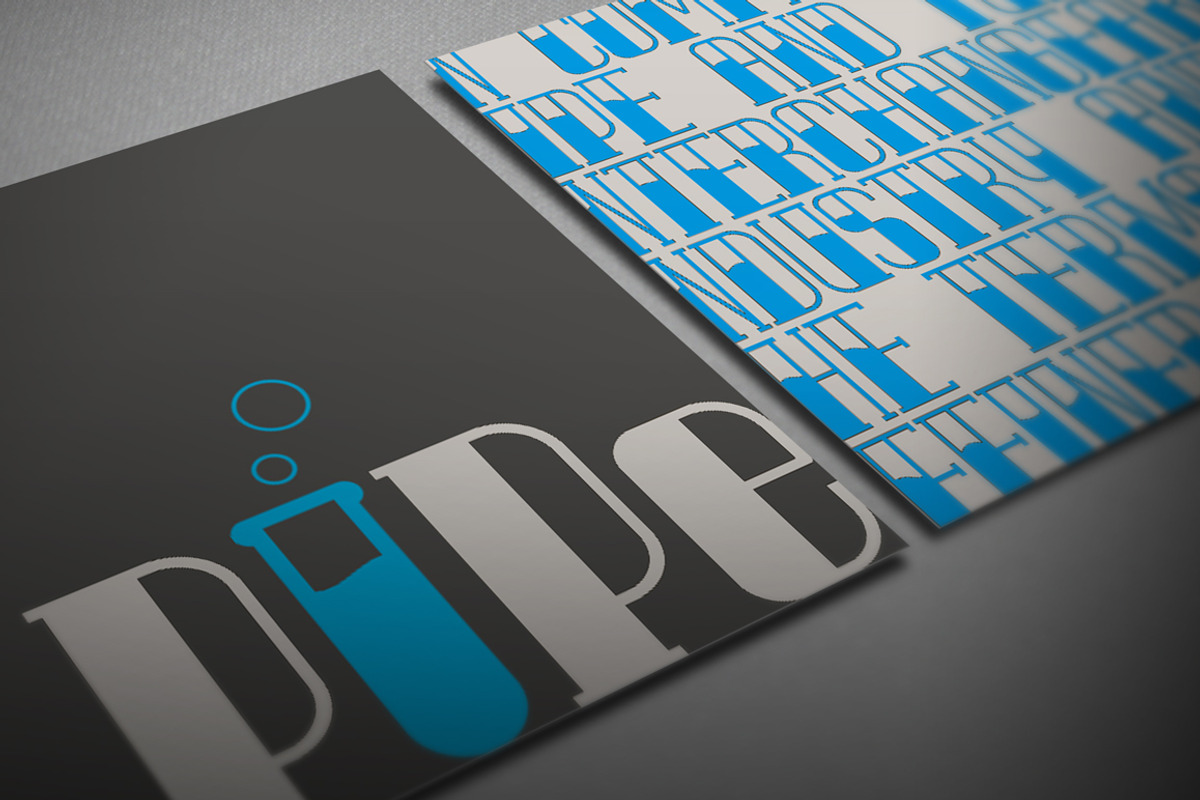
Pipe TrueType Font
Pipe TrueType Font by alphadesign is a font selected for branding, posters, packaging, typography.
Why Pipe TrueType Font is worth a look
Pipe TrueType Font by alphadesign fits naturally into Branding, posters, packaging, typography.